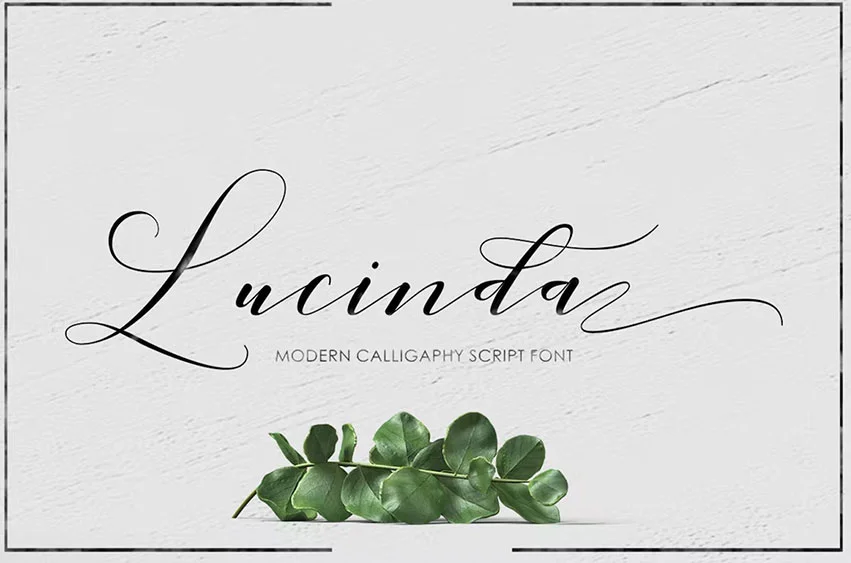
Lucinda Font is a lovely calligraphic manuscript modern, I hope you are interested in this font, dynamic and pretty with swashes. Can be used for many purposes. such as title, signature, logo, wedding invitations, letterhead, signage, labels, newsletters, posters, badges, etc.